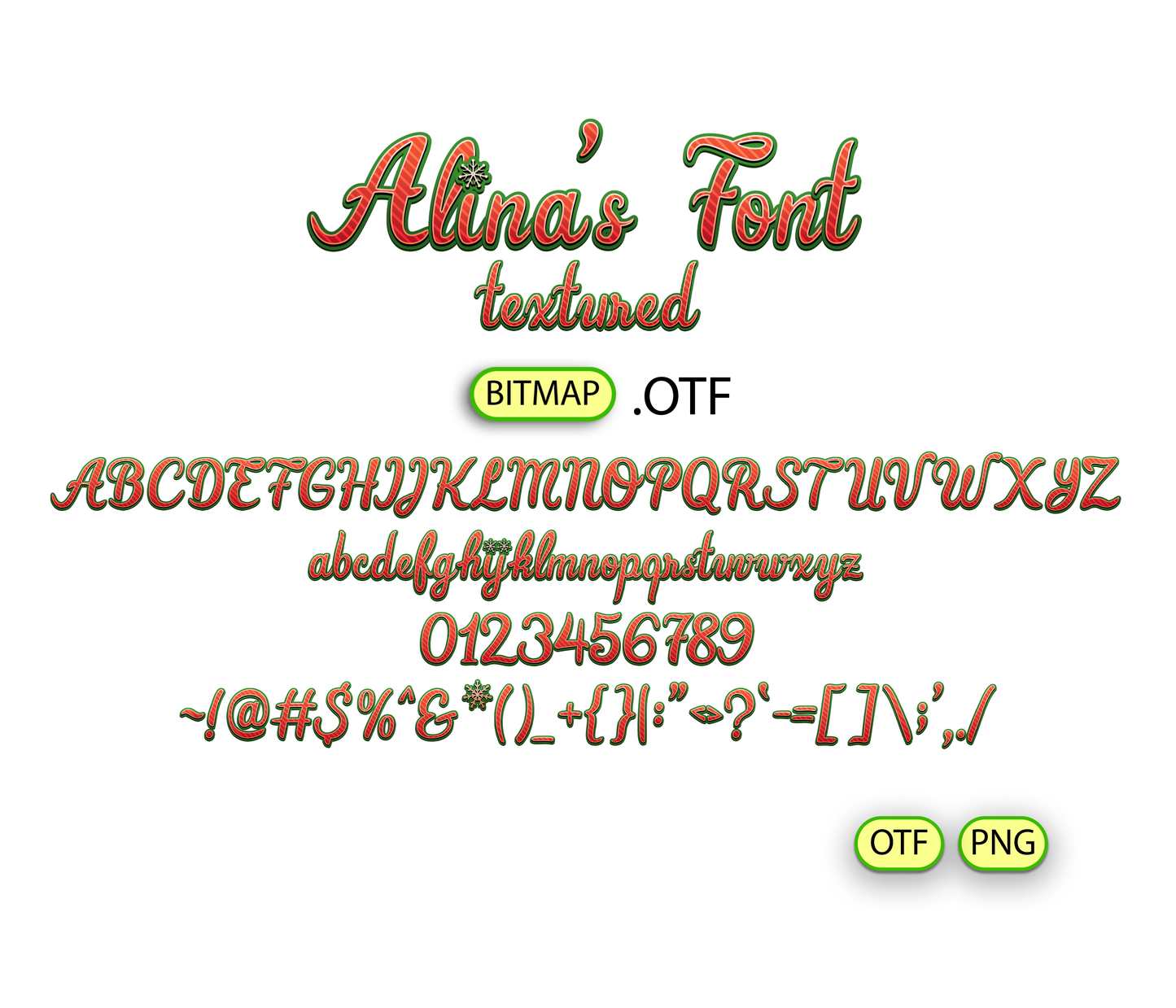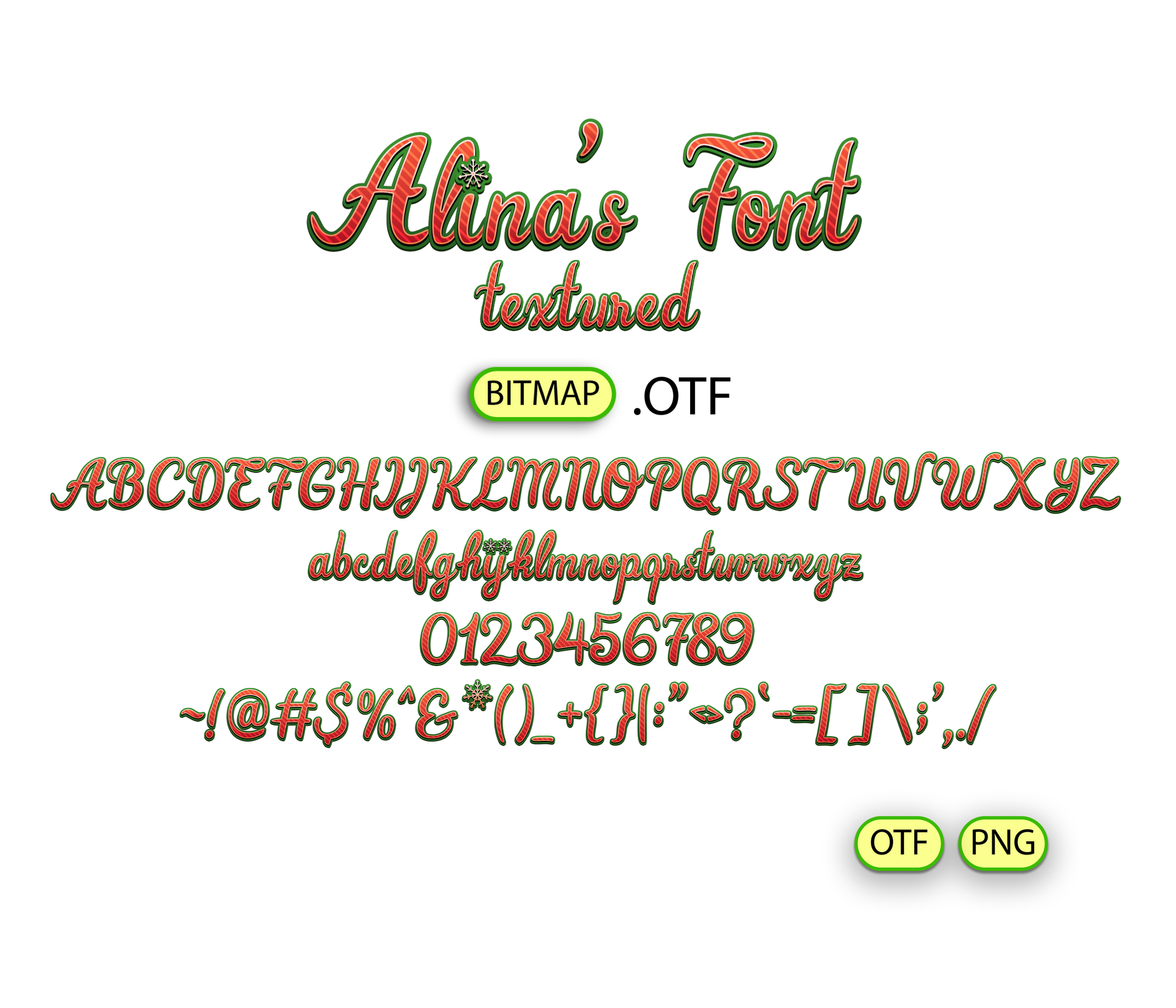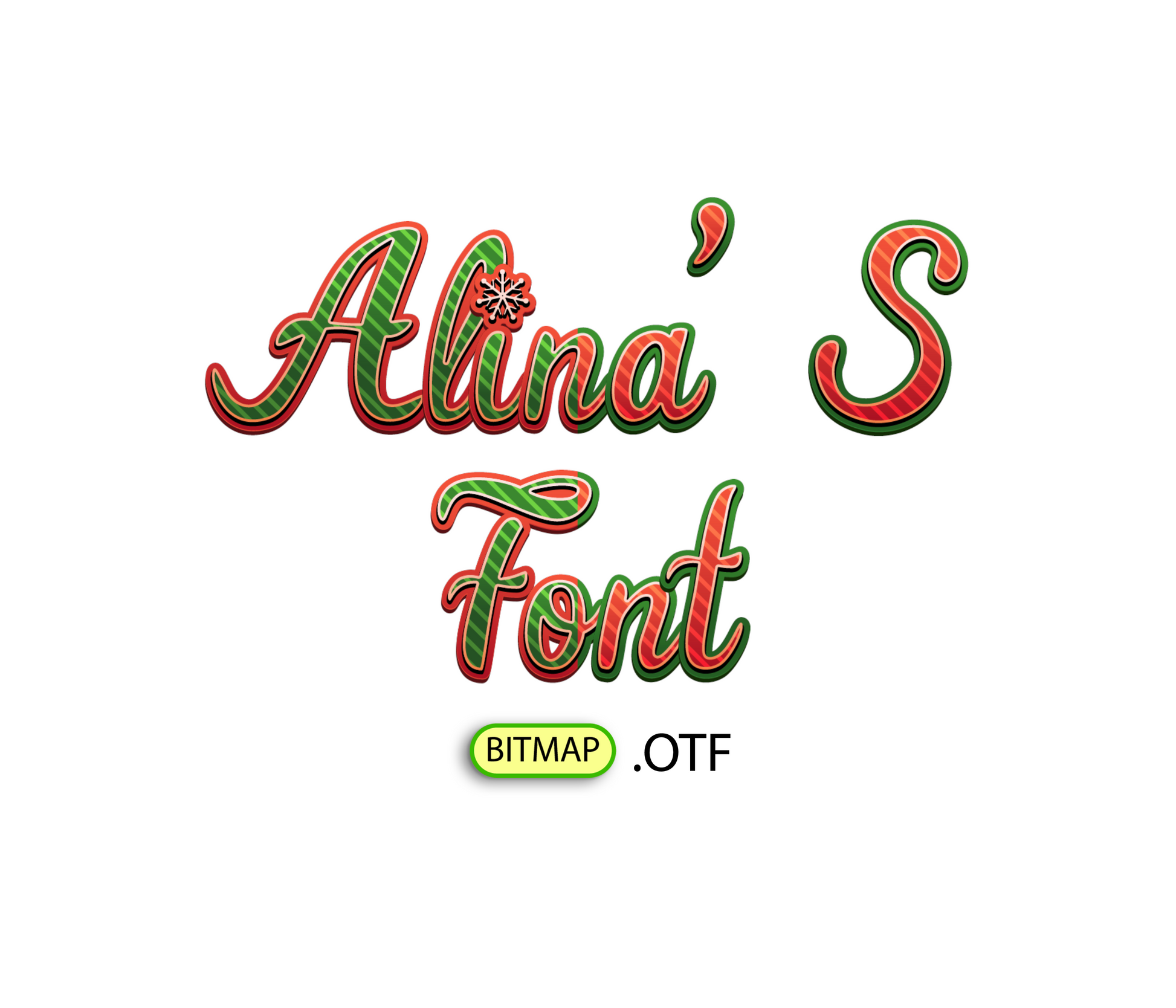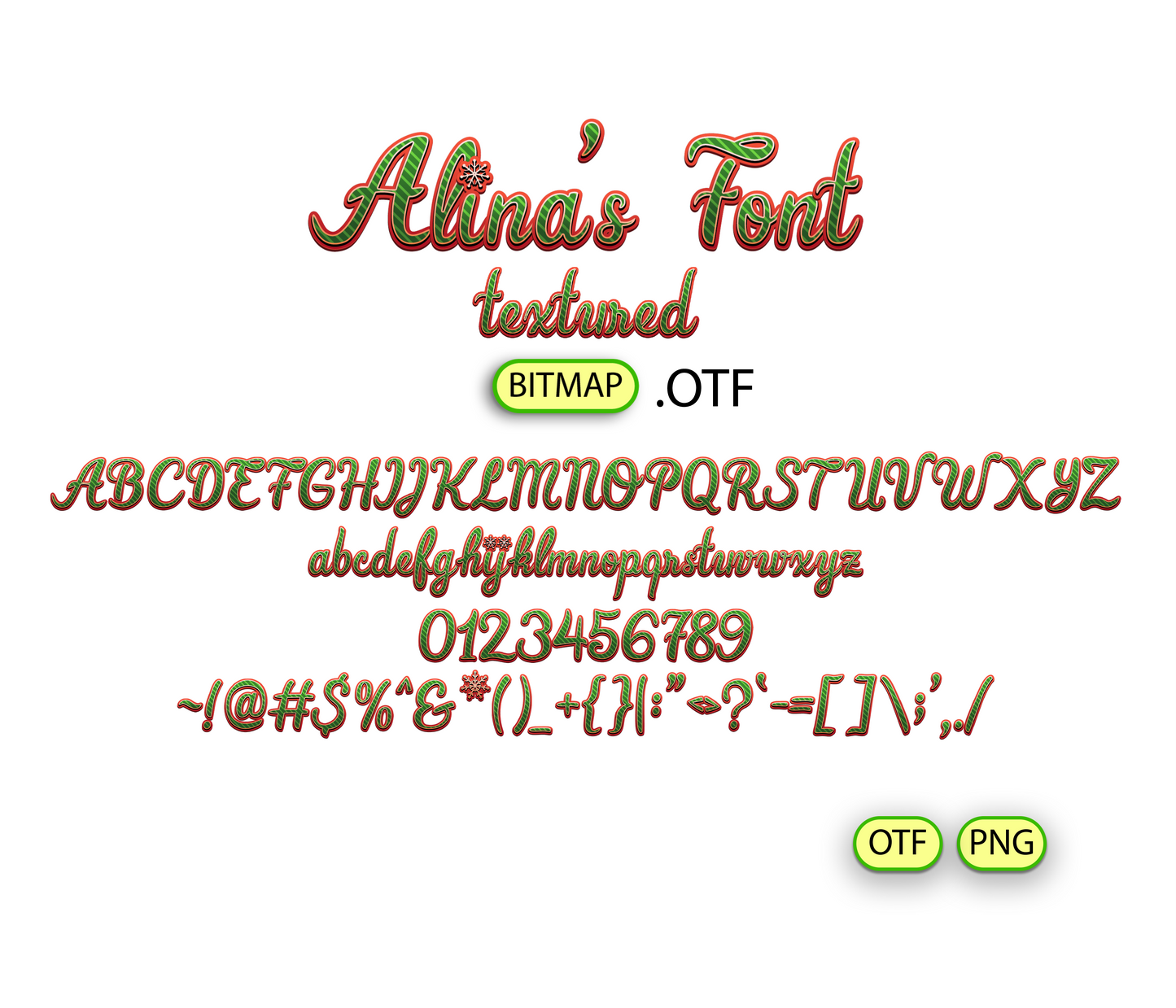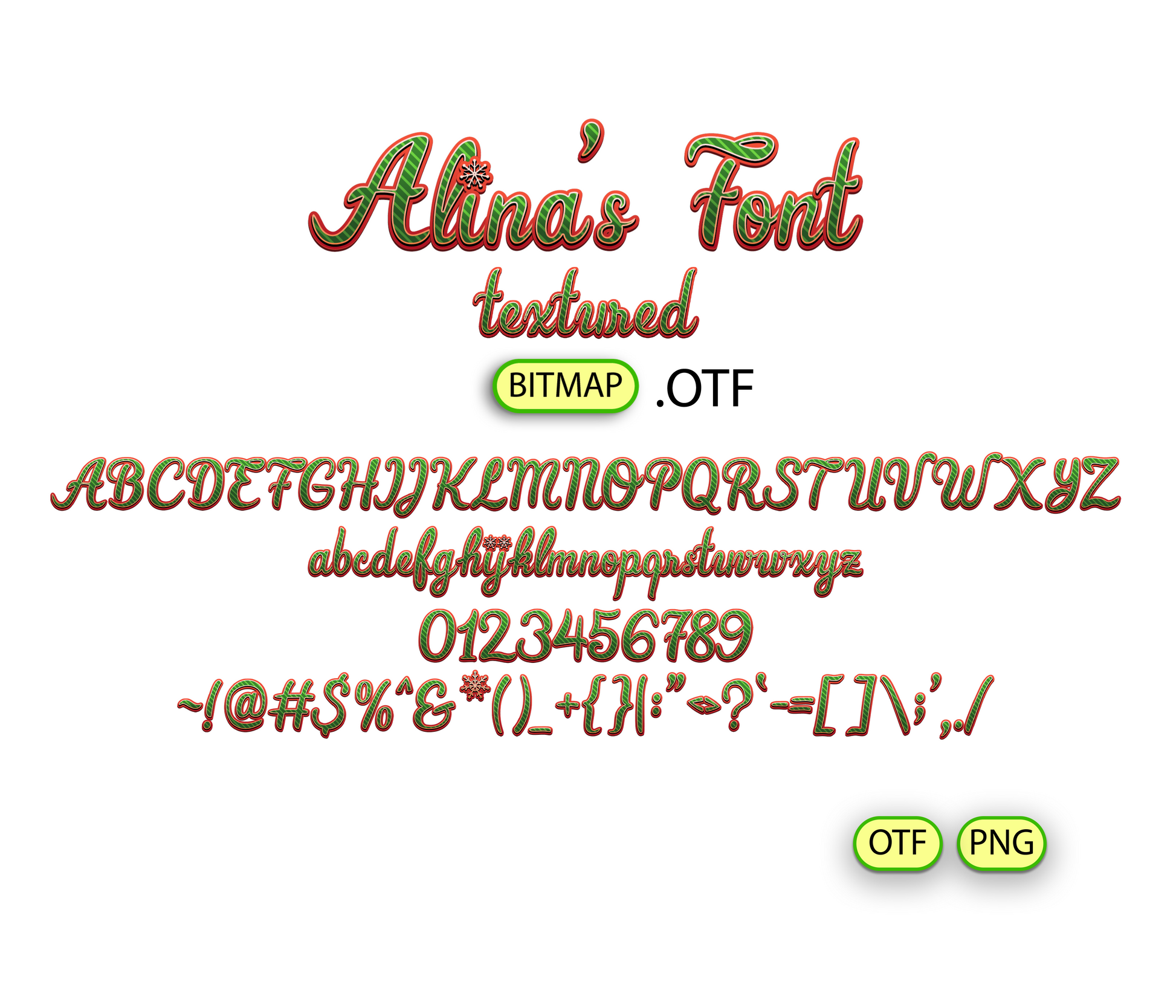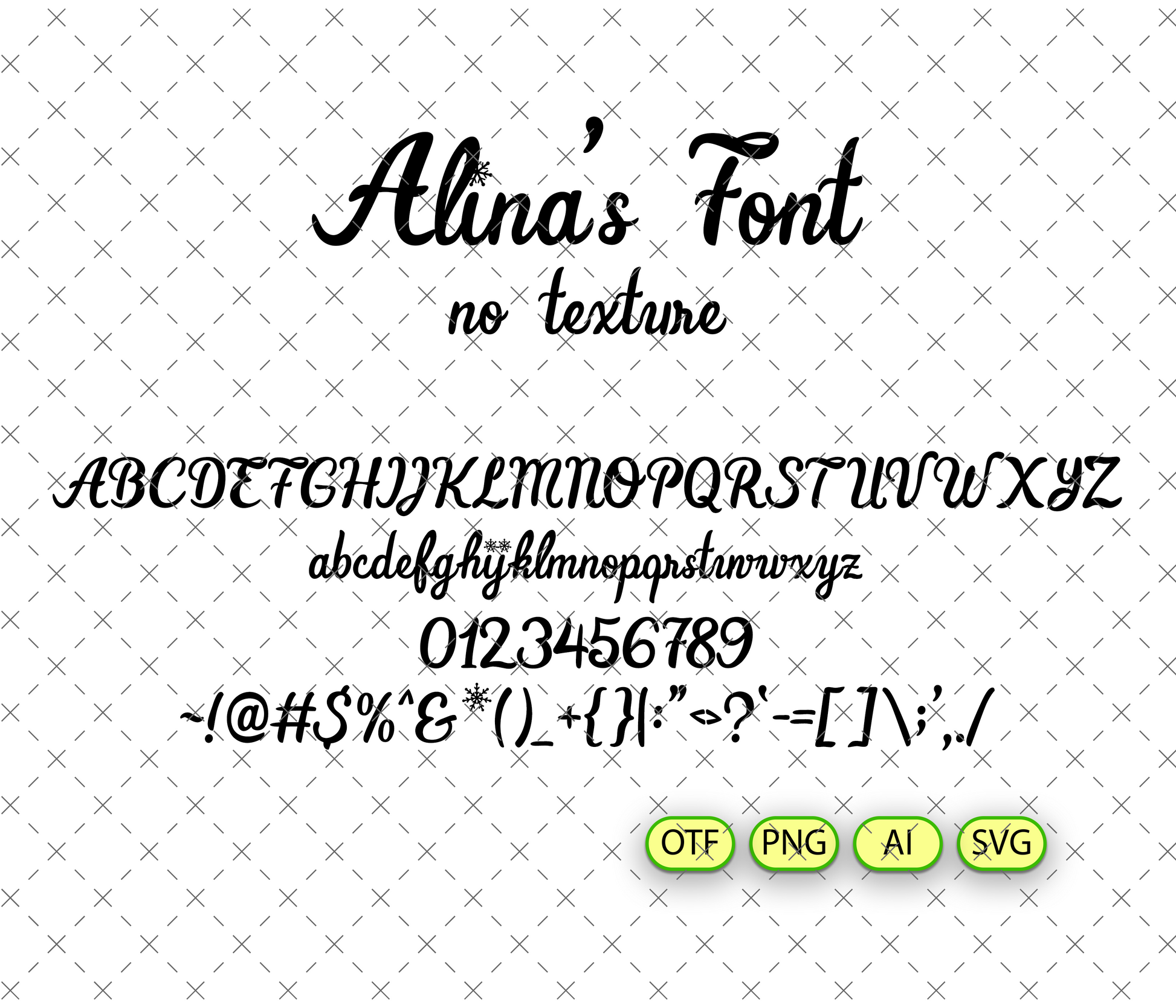
Festive Christmas Multicolor Font Textured Bundle
Christmas Color Font Bundle
Step into the magical world of holiday celebrations with our Christmas Color Font Bundle, capturing the essence of festive cheer and joyful traditions. Perfect for holiday crafters, sublimation designers, small business owners, and creative professionals, this font bundle brings the merry, enchanting spirit of Christmas to your projects. Create heartwarming greeting cards, merchandise, or digital content with the festive energy of the holiday season.
Festive Multicolor Typography for Holiday Crafts & Seasonal Design
Our Christmas Color Font Bundle features vibrant, celebratory letterforms with holiday-themed textures reflecting the world of festive decorations and seasonal joy.
Our font bundle pays tribute to the iconic world of holiday traditions and festive design, empowering your projects with its merry and enchanting spirit. Whether crafting seasonal materials, designing Christmas products, or adding a festive touch to personal projects, this font communicates the heartwarming essence of holiday magic. Ready to inject Christmas cheer into your creations? This font bundle is your key to joyful, impactful design.